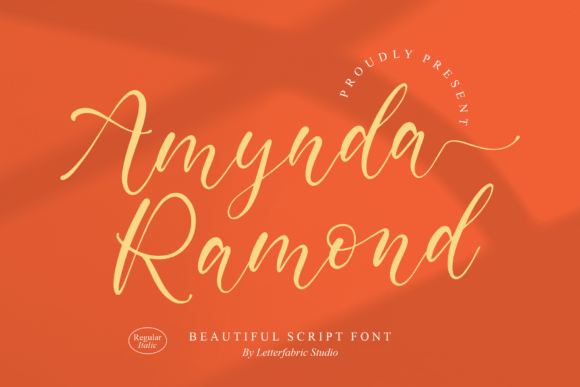
A Touch of Elegance: The Amynda Ramond Font
As designers, we’ve all been there – staring at a blank canvas, waiting for that spark of creativity to strike. For me, it’s the moment when the perfect font comes along and elevates the entire project. And that’s exactly what the Amynda Ramond Font does. This beautiful script font is the perfect addition to any project, from logos and branding to homeware designs and product packaging.
The Amynda Ramond Font is a versatile and elegant choice that adds a touch of sophistication to any design. With its PUA encoded features, designers can easily access all the glyphs and swashes, making it a valuable asset for any creative project. Whether you’re working on a special event invitation or a book cover, this font is sure to make your designs stand out.
Amynda Ramond Font Key Features
- Font Family: Amynda Ramond Font is a unique, elegant script font designed to add a touch of sophistication to various designs.
- Unique Characteristics: Amynda Ramond Font features a distinctive, flowing script style with intricate details and subtle flourishes, making it ideal for creating eye-catching headlines and titles.
Amynda Ramond Font Review
I recently had the chance to work with the Amynda Ramond Font, and I must say it’s an interesting addition to any design project. Here are my thoughts on what works well and what could be improved.
- Unique aesthetic: The Amynda Ramond Font has a distinct, elegant feel that sets it apart from more common fonts. Its intricate details and ornate flair make it perfect for projects that require a touch of sophistication.
- High legibility: Despite its ornate nature, the font is surprisingly easy to read, making it a great choice for both print and digital designs.
- Wide range of weights: The font comes in a variety of weights, from light to bold, allowing for a high degree of customization and flexibility.
- Lack of versatility: While the font is great for certain projects, it may not be the best choice for more casual or informal designs.
Overall, I think the Amynda Ramond Font is a solid addition to any designer’s toolkit. While it may have some limitations, its unique aesthetic and high legibility make it a great choice for projects that require a touch of elegance.
Amynda Ramond Font Practical Application Guide
Tips: Use Amynda Ramond Font for headings and titles to add a touch of elegance and sophistication to your designs.
Tips: Use Amynda Ramond Font for custom typography projects, such as logo design or invitation cards.
Tips: Use Amynda Ramond Font for presentations, reports, or documents that require a touch of sophistication and elegance.
Amynda Ramond Font is ideal for:
- Logo design and branding
- Invitation cards and event promotions
- Set the font size to 24-36 points for headings and 12-18 points for body text.
- Use the font’s elegant and cursive script to highlight important travel information, such as destinations and travel dates.
- Use warm and muted color schemes, such as gold, beige, and crimson, to evoke a sense of vintage charm.
- Incorporate vintage-style illustrations, such as classic airplanes and ships, to add a touch of nostalgia.
- Balance the cursive script of the Amynda Ramond Font with clean and simple typography for body text.
- Use the font’s elegant script to highlight the bride’s and groom’s names, as well as the wedding date and location.